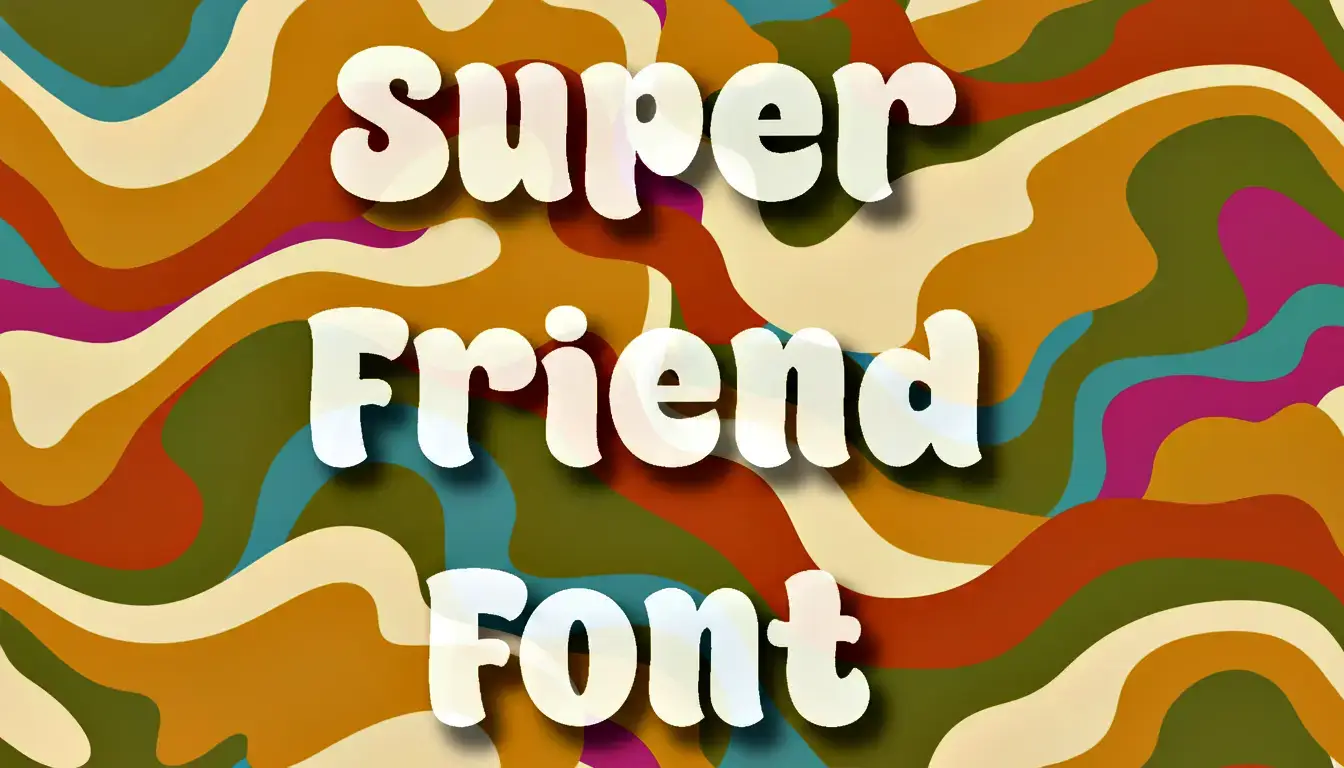
Super Friend Font
Super Friend
Super Friend is a fancy font. Bold and full of character, it's built to stand out rather than blend in. You can download it for free and test it with your own words in the preview above.
What You Can Type With Super Friend
With complete upper and lowercase letters and all ten digits, Super Friend is ready for real wording, not just a single headline. Everyday marks like &, !, ? and @ are there too. Thanks to its accented letters, it also works for Spanish, French, German, Portuguese and Italian, not just English.
Where Super Friend Works Best
Super Friend is a natural fit for posters, logos and eye-catching headlines. Use it for one standout word or headline and let simpler fonts handle the rest.
Does Super Friend support accented letters?
Yes. Super Friend includes the accented letters needed for Spanish, French, German, Portuguese and Italian, so it works for more than just English.